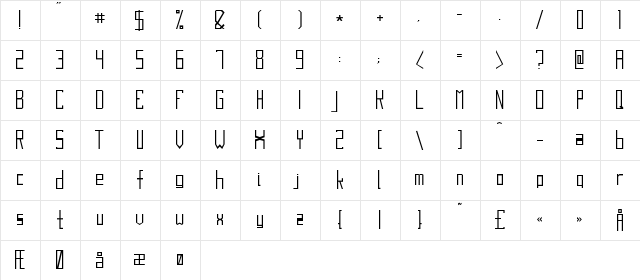
Blok Regular
Design Context for Blok Typeface
Blok takes a measured approach to typography — its balanced proportions and neutral character make it a reliable workhorse for both digital and print work.
Pro Tip: Pair Blok with a font of contrasting weight or personality to build a more expressive typographic hierarchy.